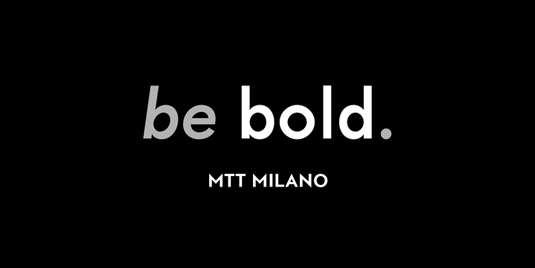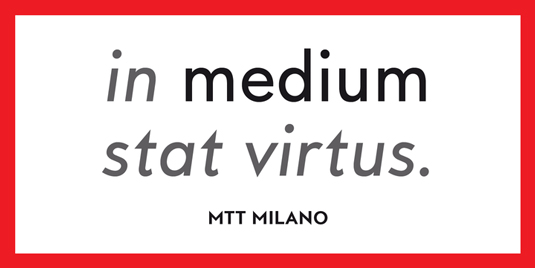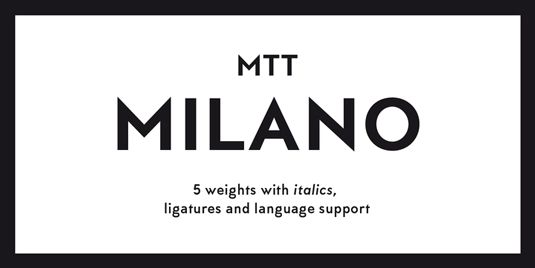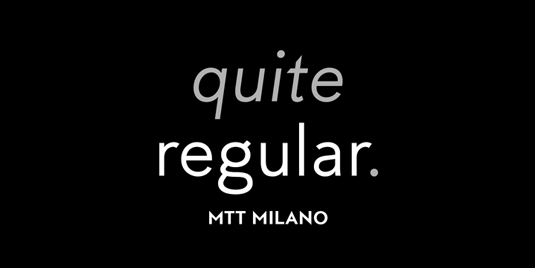
Font of the day: MTT Milano
Every day we showcase the best fonts on the web. Today it's MTT Milano by Mattia Bonanomi.
MTT Milano by Mattia Bonanomi
We're welcoming the first of December in with this beautiful typeface MTT Milano, by Italian graphic designer Mattia Bonanomi. Available from MyFonts, MTT Milano is described as being "inspired by the Milanese typographic heritage and the Futurist movement that developed it. Drawn from scratch, it features ascendants and descendants slightly taller than what can usually be found in similar typefaces, in order to improve its elegance".